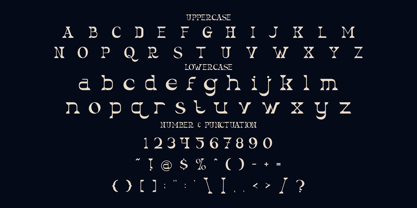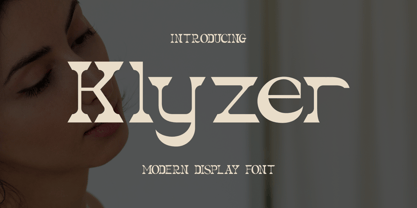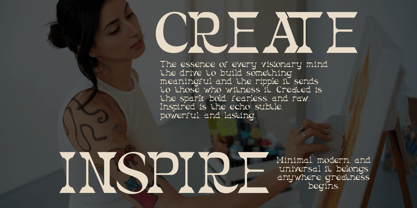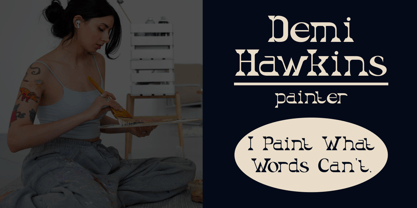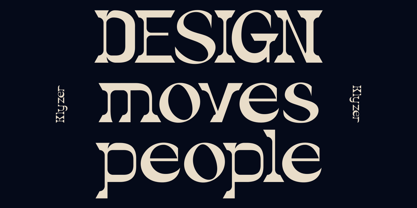
Klyzer
von Shanaf
Die Schriftfamilie Klyzer wurde von Yesie Erma Yunita entworfen und von Shanaf veröffentlicht. Klyzer enthält 1 Stile. Mehr über diese Familie
Klyzer is a bold and expressive modern display font that merges geometric precision with Latin-inspired flair. Each letterform is crafted with high contrast between wide and narrow strokes, combining sharp wedge serifs and subtle curves. The design evokes a contemporary vintage feel, reminiscent of Mexican poster art and classic serif constructions—but with a modern twist. Klyzer’s unique rhythm and structure give off a powerful personality, making it ideal for headlines, logos, packaging, or any layout that needs to grab attention and radiate artistic confidence.
The font includes uppercase and lowercase letters, numerals, and a full range of punctuation, providing complete versatility for any design project. Its balanced letter spacing and dynamic letterforms make it visually engaging while still being legible at larger sizes. Whether used in editorial design, fashion branding, or poster titles, Klyzer injects a sense of charm and sophistication. It’s perfect for designers aiming to create captivating work that stands out across digital and print mediums.
Designer: Yesie Erma Yunita
Foundry: Shanaf